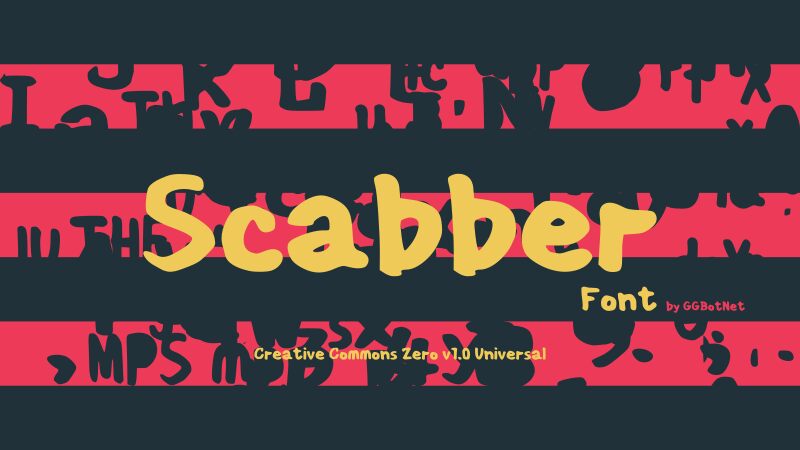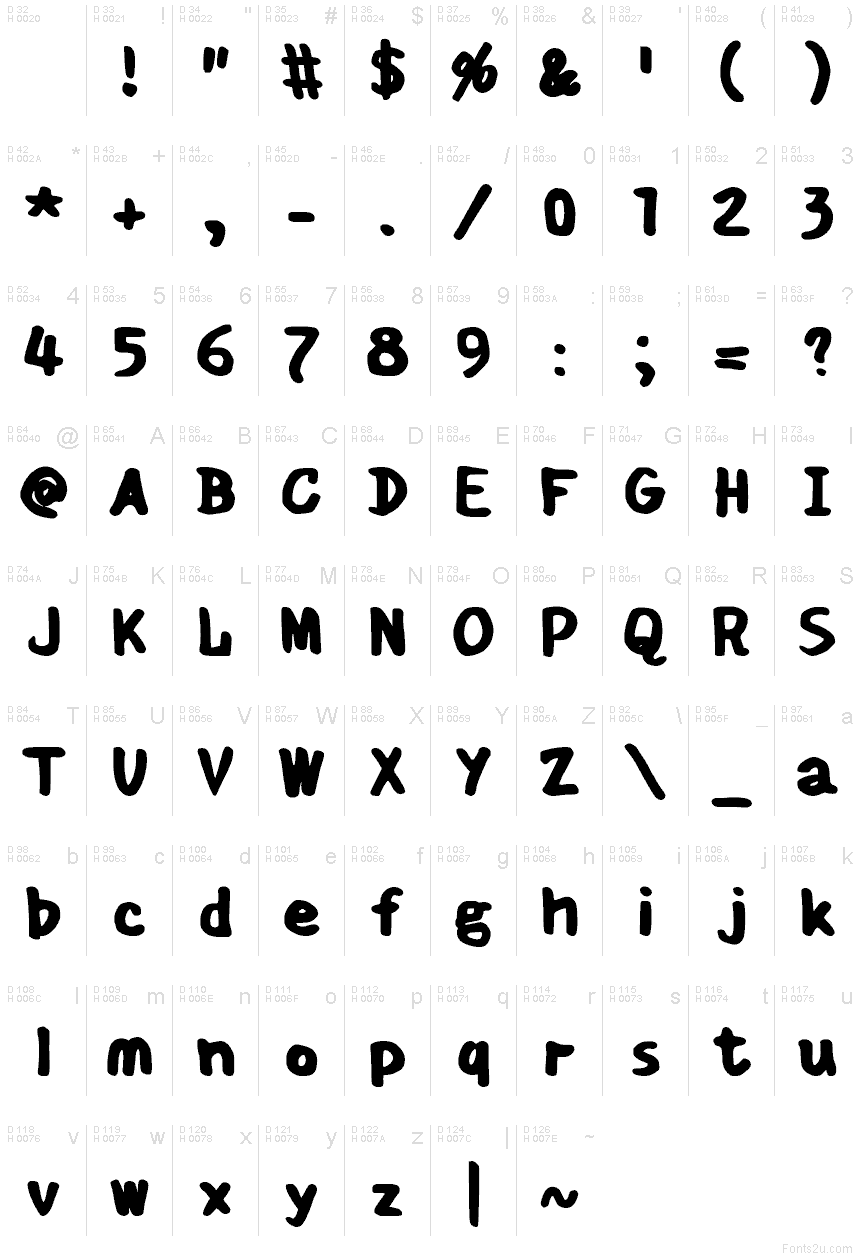
Scabber
Scabber font by GGBotNet is a free handwritten marker typeface with the bouncy charm of a doodle in the corner of a notebook. Its chunky, inky strokes feel soft and smudgy rather than sharp, with rounded shapes that wobble just enough to feel human and fun. The letters tuck close together, creating a friendly, casual rhythm that reads like a quick note from a friend rather than a polished headline.
Using Scabber, you get a natural fit for kids’ posters, activity sheets, classroom materials, comic-style titles, craft packaging, and playful social graphics. This free font shines when used large, where its inky edges and loopy forms can really show. Pair Scabber with a clean, simple sans serif for body text to keep layouts readable while letting the marker lettering handle all the personality.